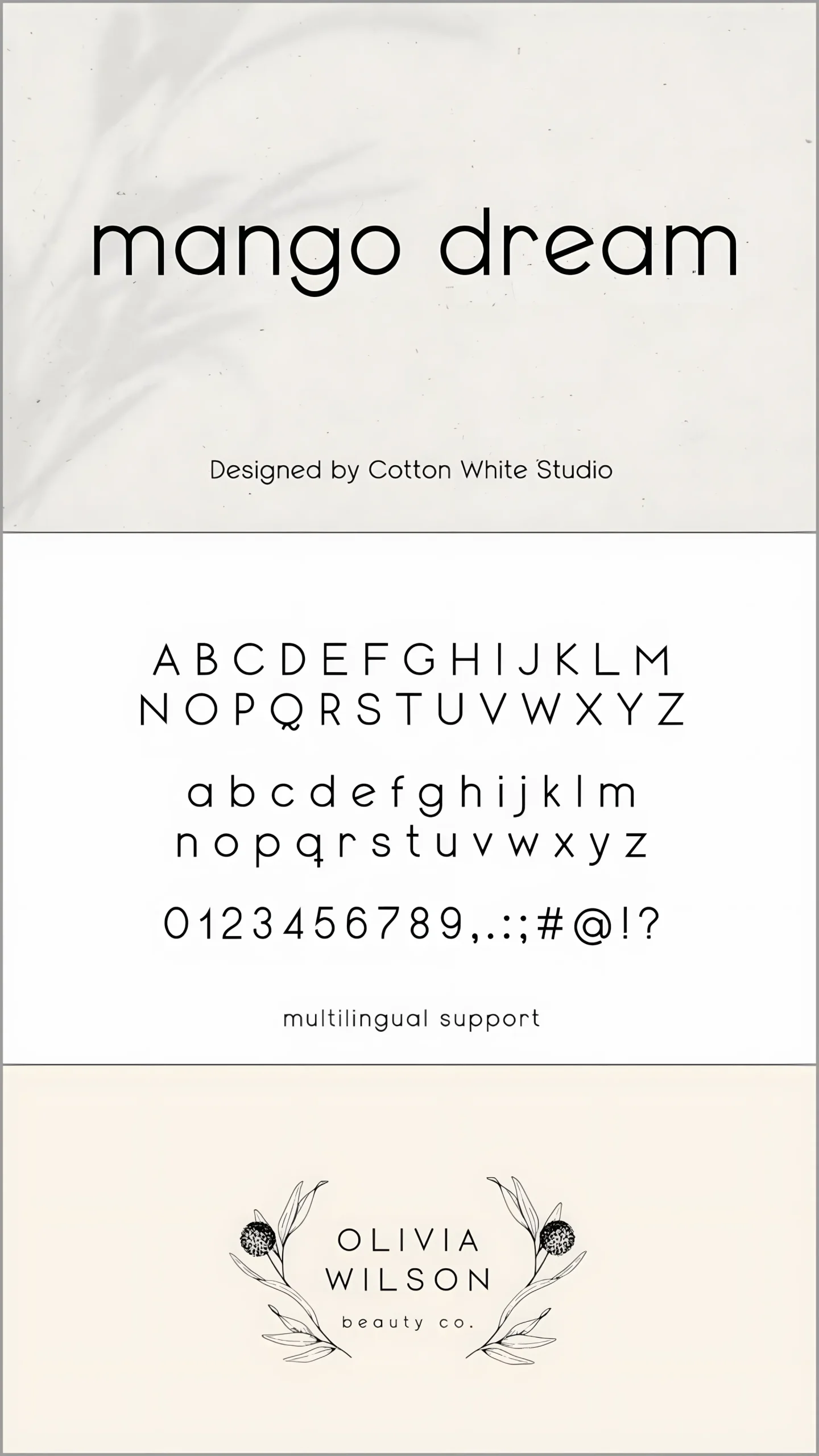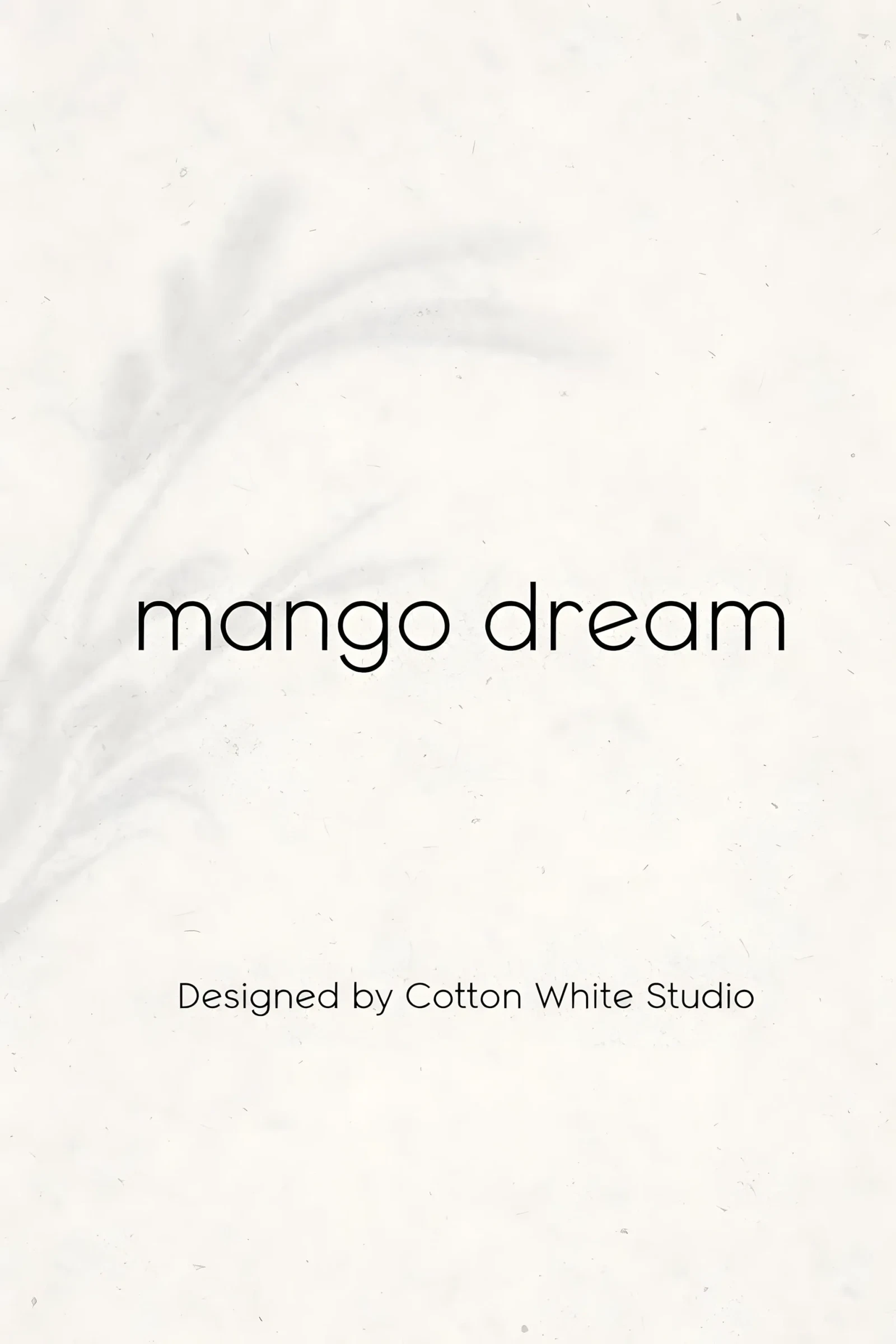
Some fonts feel trendy for a moment, while others quietly become part of a designer’s everyday toolkit. Mango Dream Font clearly belongs to the second category. It’s a modern sans-serif typeface built around clarity, balance, and subtle personality — the kind of font that doesn’t compete with content, but elevates it.
Designed with rounded shapes and a minimalist structure, Mango Dream feels professional without being cold, and friendly without becoming playful. It’s the type of font that works across industries, platforms, and styles with very little effort.
A Typeface Built on Simplicity
Mango Dream is defined by restraint. There are no exaggerated curves or aggressive angles. Instead, the letterforms rely on smooth geometry and consistent stroke weight, creating a calm and readable visual rhythm.
This simplicity gives the font its strength. Text feels organized, breathable, and modern, which makes it suitable for projects where clarity and trust matter more than decoration.
The rounded details soften the overall appearance, making the font feel approachable rather than corporate.
How Mango Dream Feels in Real Use
When used in layouts, Mango Dream creates a sense of order. Headlines feel clean and confident, while body text remains comfortable to read. It doesn’t distract from images or messaging, which is why it works so well in branding and editorial contexts.
The font feels:
- modern and minimal
- neutral but warm
- professional without stiffness
- versatile across visual styles
This balance allows it to adapt to both creative and commercial environments.
Ideal Applications Across Design Fields
Branding and Logo Design
Mango Dream works especially well in branding projects that aim for elegance and clarity. It fits naturally into:
- beauty and wellness brands
- lifestyle businesses
- boutiques and personal brands
- creative studios
Its clean structure allows logos to feel refined without looking generic.
Digital Content and Websites
On screens, Mango Dream performs exceptionally well. The rounded shapes improve readability, while the spacing keeps text from feeling crowded.
It’s a strong choice for:
- websites and landing pages
- blogs and editorial platforms
- digital portfolios
- UI headings and labels
The font maintains consistency across different screen sizes and resolutions.
Social Media and Marketing Materials
Mango Dream is often used in social media graphics because it scales well and stays readable even in smaller formats. It works nicely for:
- Instagram posts and stories
- marketing banners
- ads and promotional visuals
The font pairs easily with photography and soft color palettes.
Typography Details and Character Support
Mango Dream includes:
- uppercase and lowercase letters
- numbers
- punctuation
- multilingual character support
This makes it suitable for international projects and long-term brand use. The consistent letter spacing helps maintain readability even when text is condensed or expanded within layouts.
Because of its neutral yet refined style, Mango Dream remains useful across multiple projects instead of being limited to a single niche.
Why Minimal Sans-Serif Fonts Stay Relevant
Minimal sans-serif fonts continue to dominate modern design because they prioritize clarity and adaptability. Mango Dream fits perfectly into this category, offering a look that feels current without chasing trends.
Its strength lies in reliability. Designers can return to it again and again, confident that it will support content rather than overpower it.
Who This Font Is Best For
Mango Dream is especially well suited for:
- graphic designers
- branding specialists
- content creators
- bloggers and marketers
- anyone seeking a clean, modern typeface
It works equally well for small personal projects and large professional systems.
Final Perspective
Mango Dream Font proves that simplicity, when done well, never feels boring. Its rounded sans-serif structure, modern clarity, and flexible character set make it a dependable choice for a wide range of design needs.
For designers looking for a font that blends professionalism with warmth — and modern style with long-term usability — Mango Dream offers a quiet confidence that stands the test of time.